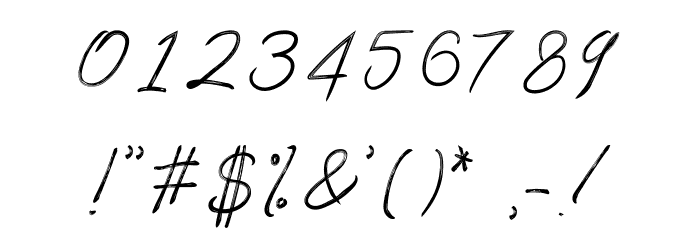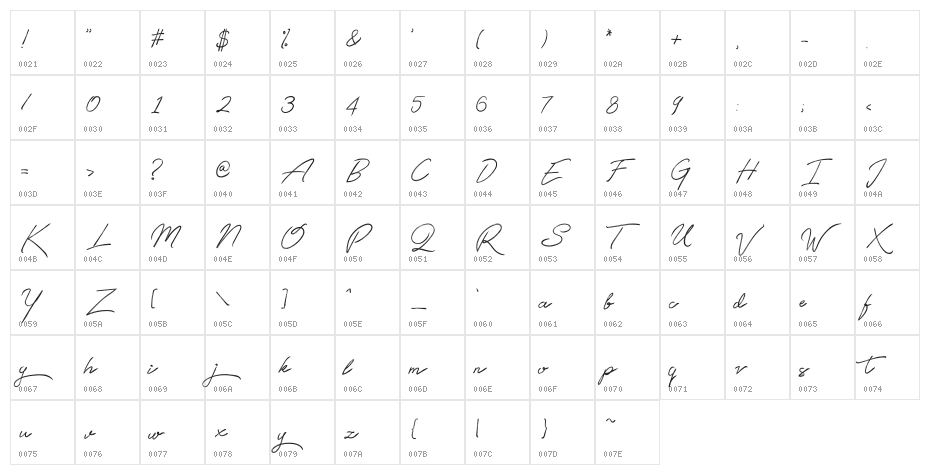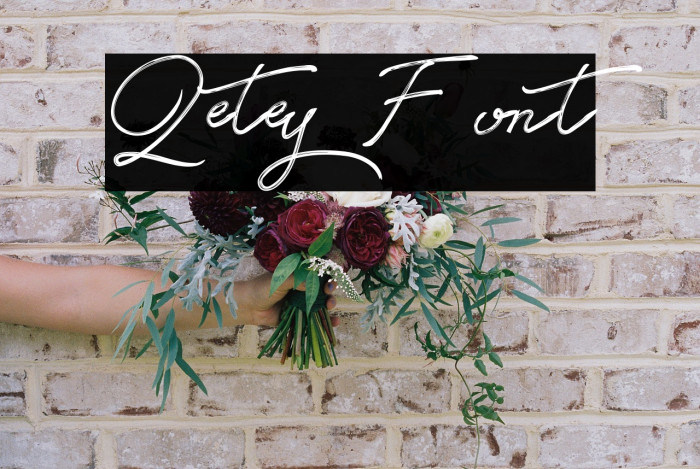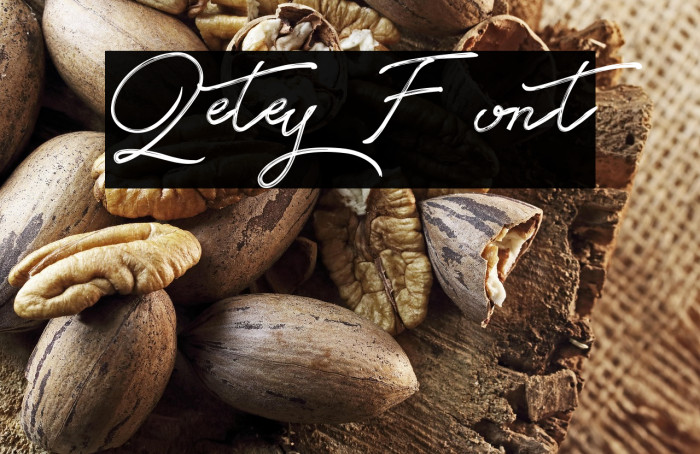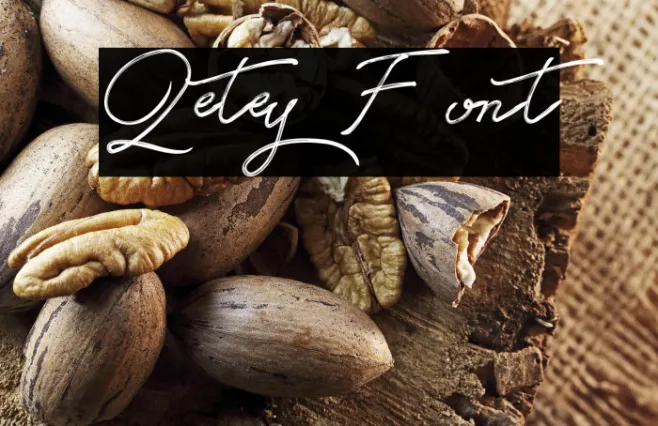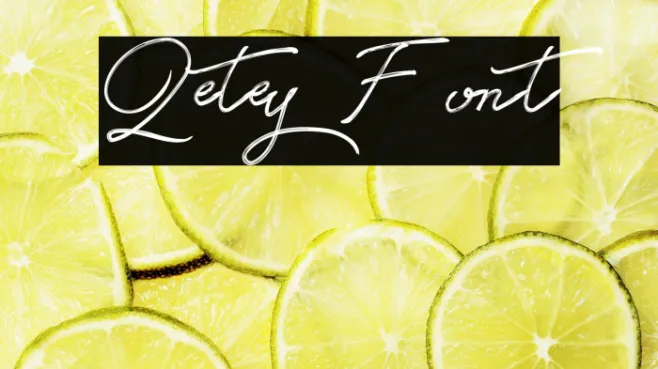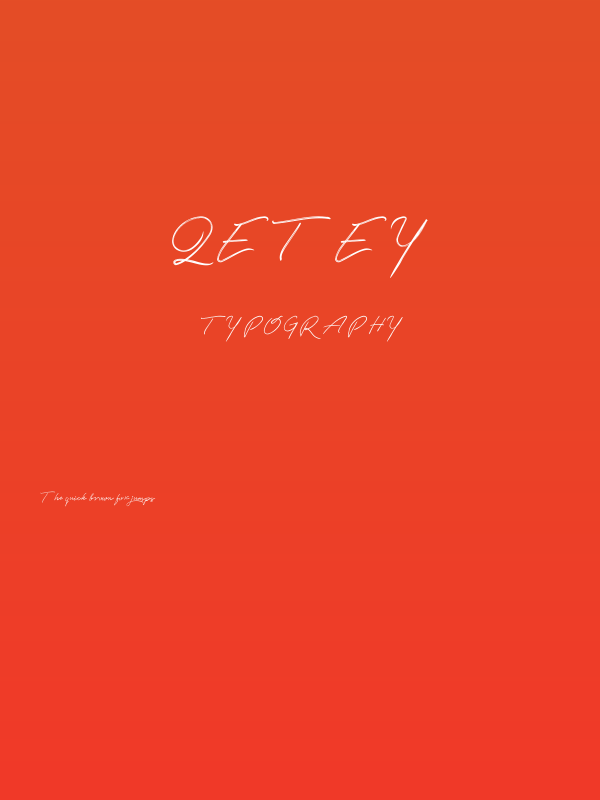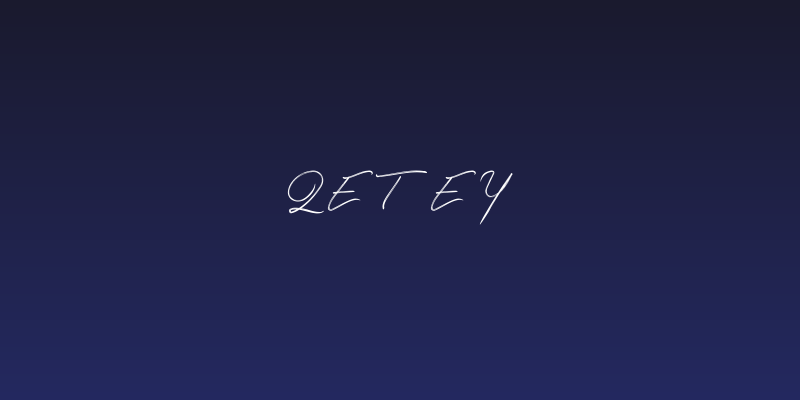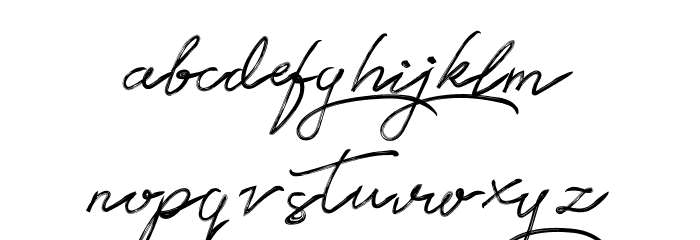
Qetey Font
Qetey Description
This font exudes a sophisticated and elegant style, characterized by its fluid and cursive script. The uppercase letters are gracefully elongated, with a slight slant that adds a dynamic flow to the text. The lowercase letters are intricately connected, creating a seamless and continuous line that enhances the handwritten feel. The numerals are consistent with the overall style, maintaining the same fluidity and elegance. Special characters are thoughtfully designed to match the aesthetic, ensuring a cohesive appearance across all text elements. This font is perfect for projects that require a touch of elegance and personal flair.
Overall StyleElegant
Use CaseLogos, Invitations, Personal Branding
Proposed ProjectsIdeal for wedding invitations, personal branding, elegant stationery, and artistic projects.